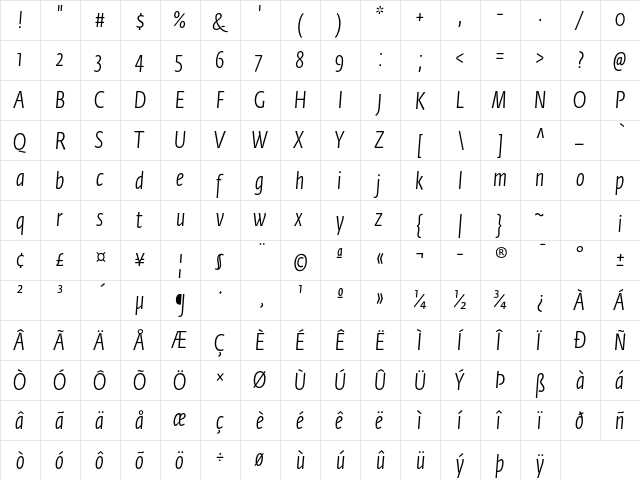
Fedra Sans Condensed Std Light Italic Font Preview
Design Context for Fedra Sans Condensed Std Typeface
Fedra Sans Condensed Std takes a measured approach to typography — its balanced proportions and neutral character make it a reliable workhorse for both digital and print work. The dynamic lean of this cut emphasises speed and emphasis in any layout. The delicate stroke weight brings airiness and refinement to layouts. Its narrow stance lets it pack a punch even in space-constrained designs.
Pro Tip: Try Fedra Sans Condensed Std for annotation and caption copy alongside an upright companion — the contrast in angle creates a dynamic but ordered typographic system.